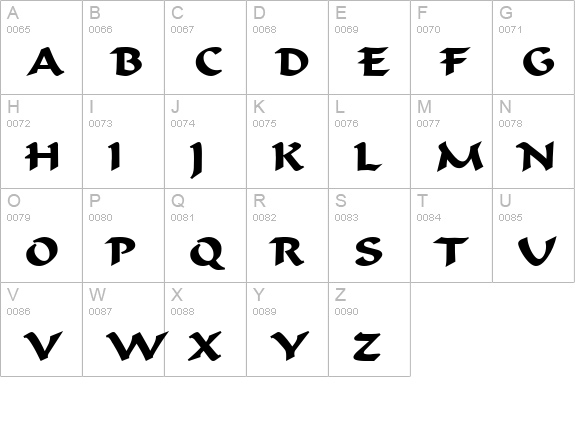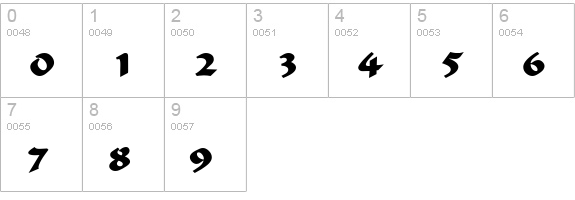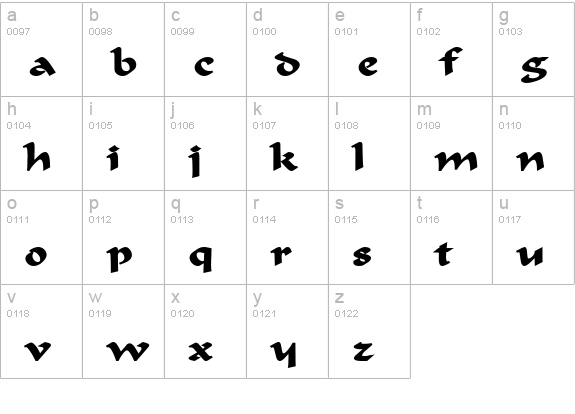
Flat Brush Wide Bold Font Details
Flat Brush Wide Bold is a strong, high-contrast, extended-width variant in the Flat typeface family \xE2\x80\x94 well suited to headlines, attention-grabbing titles, and strong calls-to-action.
The Flat Brush Wide Bold font is a striking typeface that exudes a sense of boldness and modernity. With its wide brush strokes and clean lines, this font is ideal for making a statement in your designs. Whether you're looking to create eye-catching headlines, posters, or branding materials, the Flat Brush Wide Bold font is sure to leave a lasting impression. What makes this font even more appealing is that it is available for free download at FontsMarket.com. This means that you can easily access and use this stylish typeface in your projects without any cost. Don't miss out on the opportunity to enhance your designs with the Flat Brush Wide Bold font – download it now and add a touch of sophistication to your work.